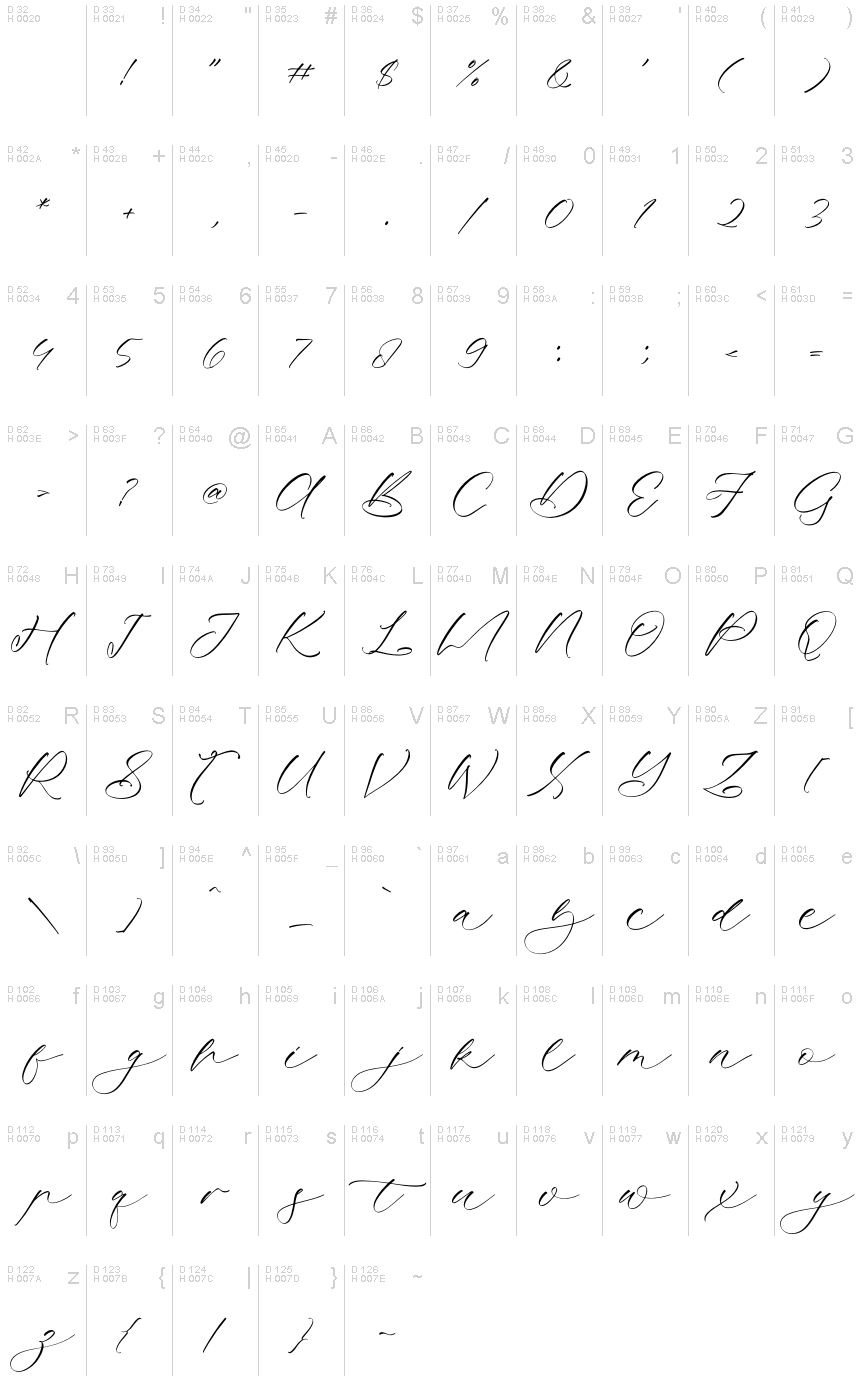
Montelia Hublot
The Montelia Hublot font, crafted by Storytype Studio, captivates with its graceful handwritten style. This light font showcases a delicate elegance, perfect for designs seeking a personal and sophisticated touch. Its flowing curves and airy strokes offer a sense of warmth and charm, making it an ideal choice for wedding invitations, greeting cards, or branding that desires an artisanal feel. The Montelia Hublot’s unique character lends itself well to projects aiming for authenticity and creativity.